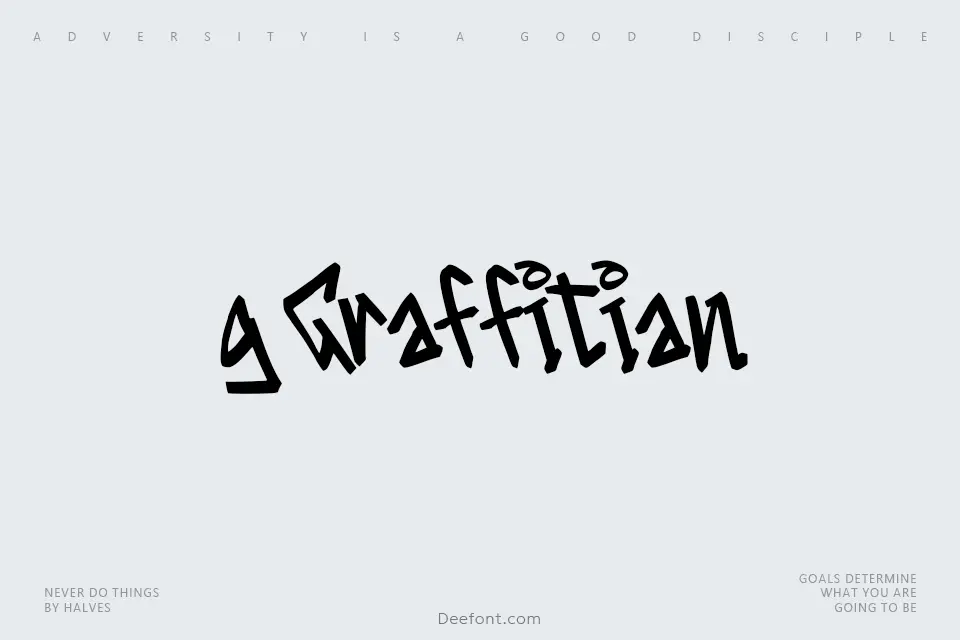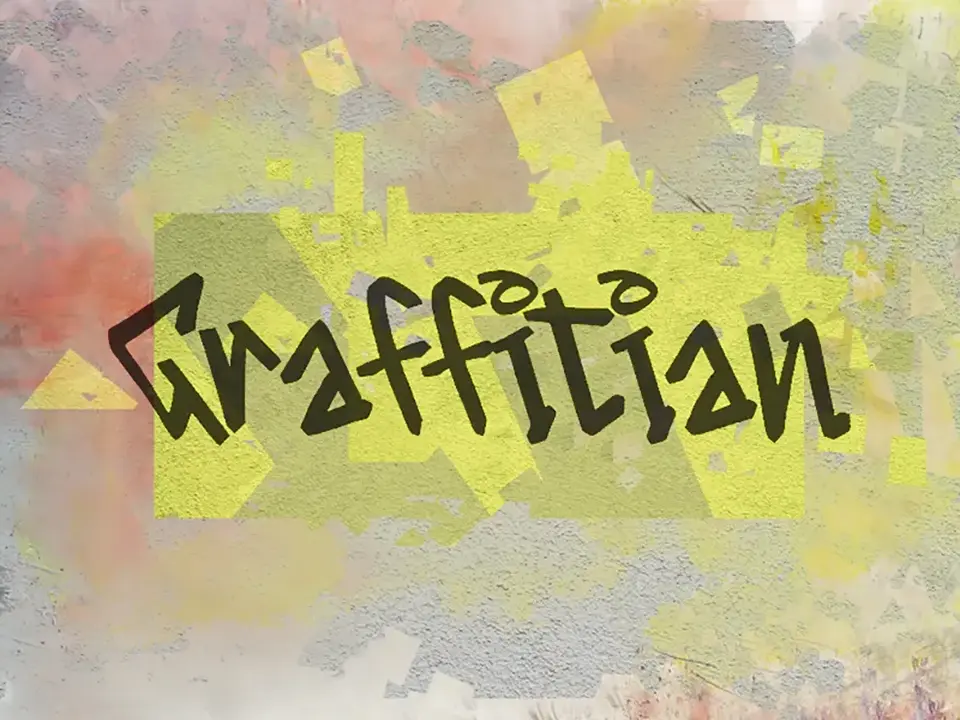
g Graffitian Font
g Graffitian is an urban graffiti display font created by Wahyu Eka Prasetya that captures the rebellious spirit and expressive style of street art. This typeface combines artistic flair with contemporary aesthetics, making it ideal for branding, event posters, clothing designs, and creative projects that require a bold, edgy visual impact. With its dynamic letterforms and street art sensibility, g Graffitian brings personality and urban energy to modern design applications.